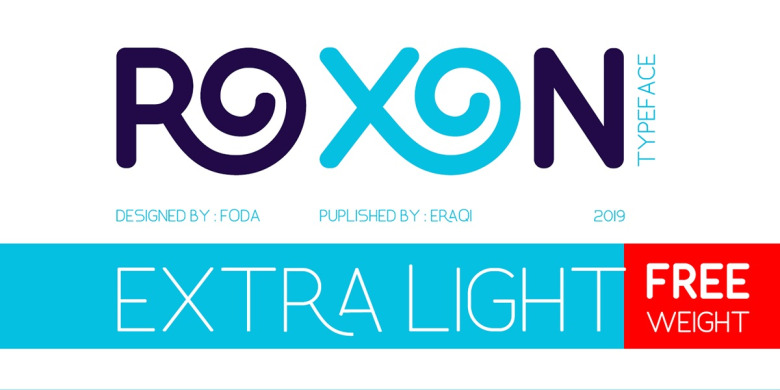
Roxon Sans Serif Font
Roxon Font
Roxon Font is a sans serif typeface of 4 weights from Extra Light to Bold and can be used as both a headline and text face. Roxon is recommended for using in long-form writing and articles, since a serif is far more readable for longer passages of text.
Roxon Sans Serif Font